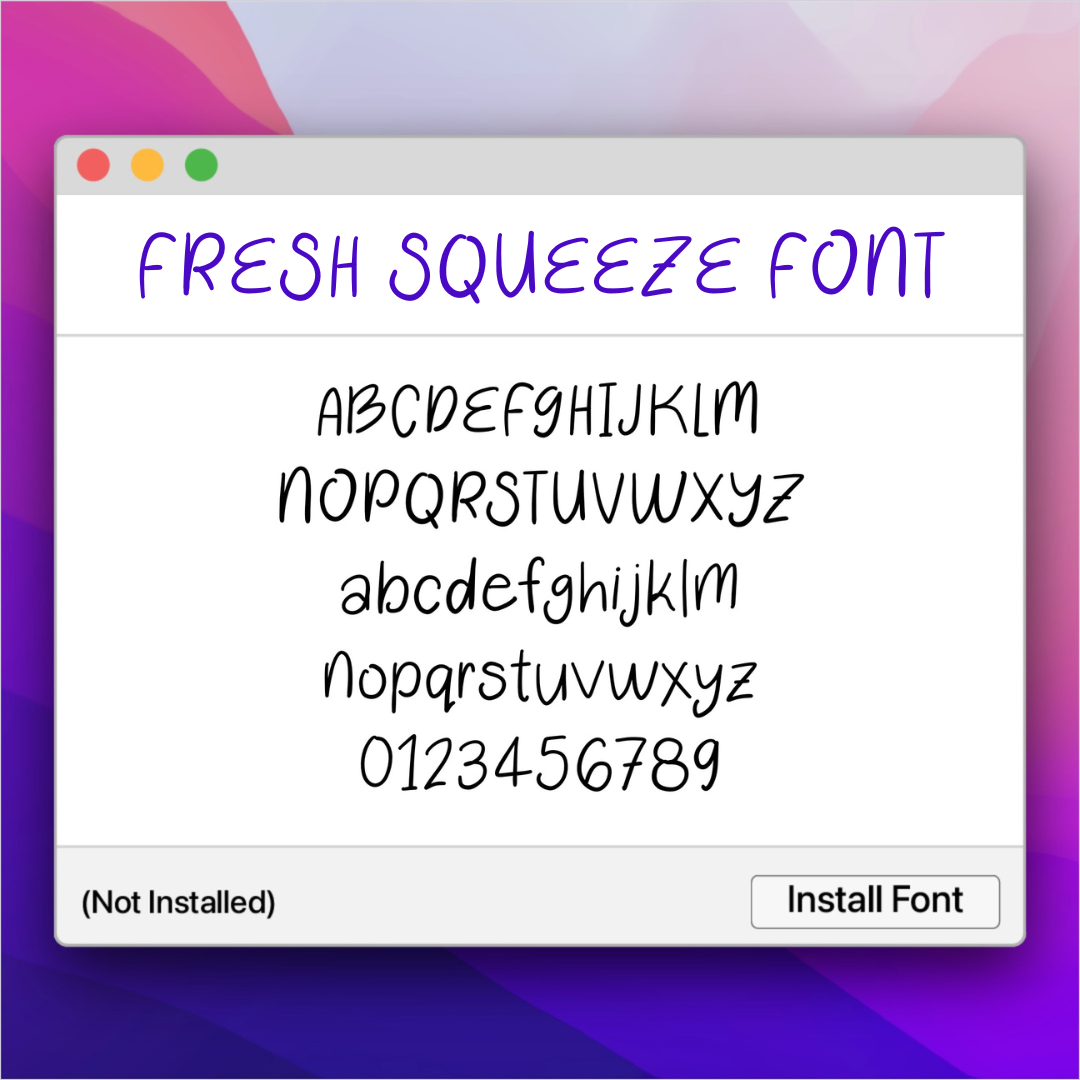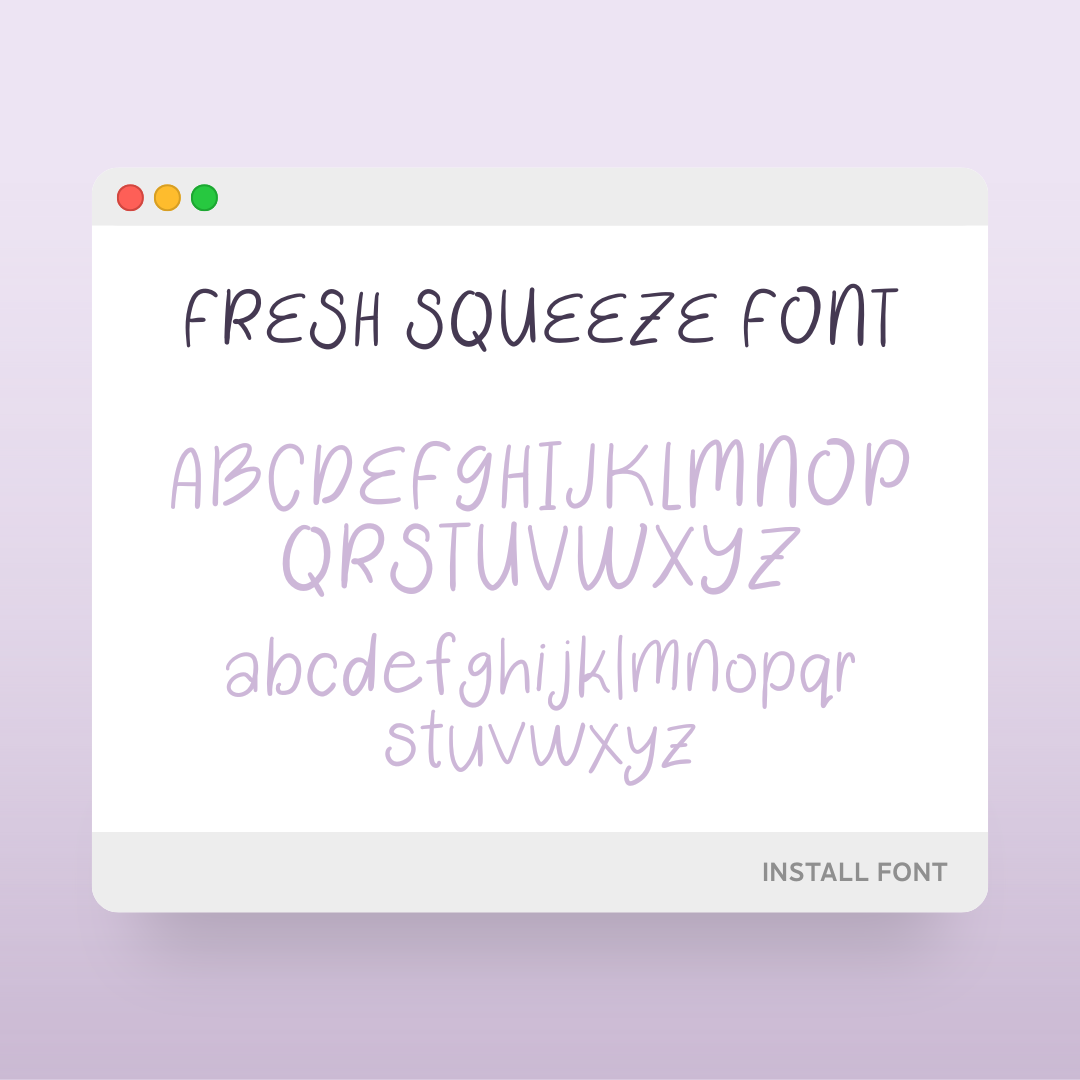
Hey there, font enthusiasts and digital doodlers! Today, I’m excited to spill the beans (or should I say squeeze the oranges?) on something truly juicy: Fresh Squeeze Font. Created right on my iPad using the fantastic Fontself app, this font is not just a labor of love but a testament to the wonders you can achieve with a bit of creativity and the right tools.
What’s the Buzz About Fresh Squeeze?
Imagine a font that’s as vibrant as a summer citrus burst and as versatile as your wildest design dreams. Fresh Squeeze Font embodies just that. It’s playful and hand-drawn, making it perfect for everything from quirky headlines to eye-catching logos and everything in between. Doesn't it seem absolutely perfect for an orange juice brand?
So, what are you waiting for? Dive into the world of font design with Fresh Squeeze Font as your muse and Fontself as your trusty sidekick. Whether you’re sprucing up a project, starting a new venture, or simply indulging your creative curiosity, there’s something magical about creating your own fonts—and sharing them with others.